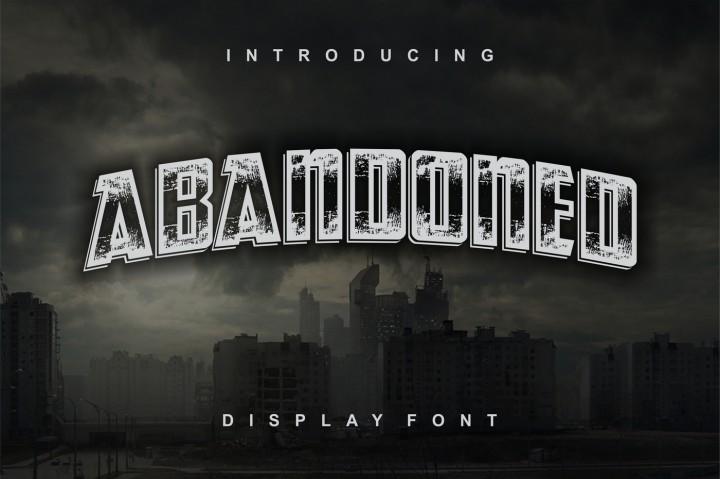
The Abandoned is a display typeface which was inspired by all survivors. It has an striking and unique look which can be used from lost city signs till abandoned villages.